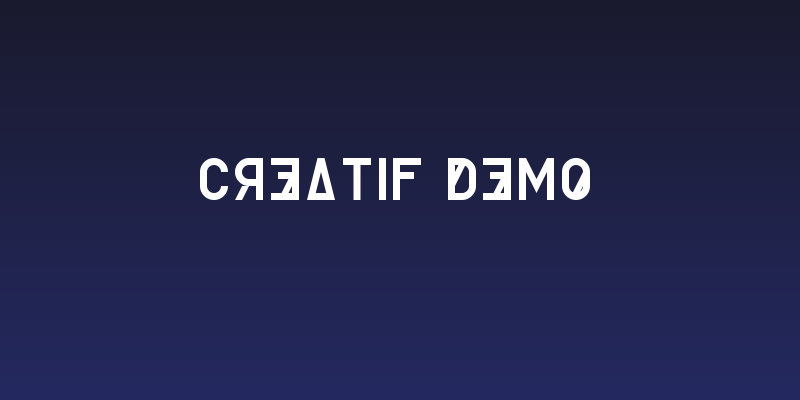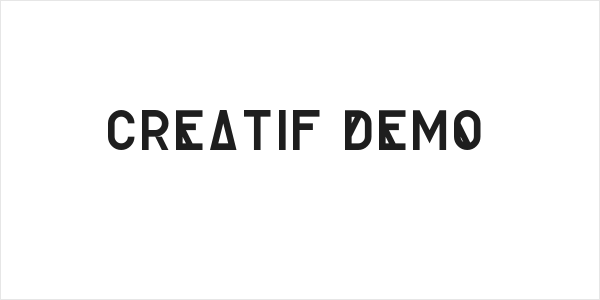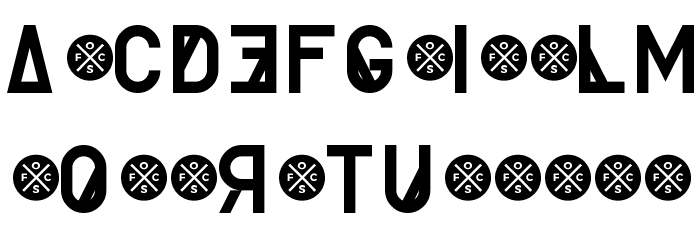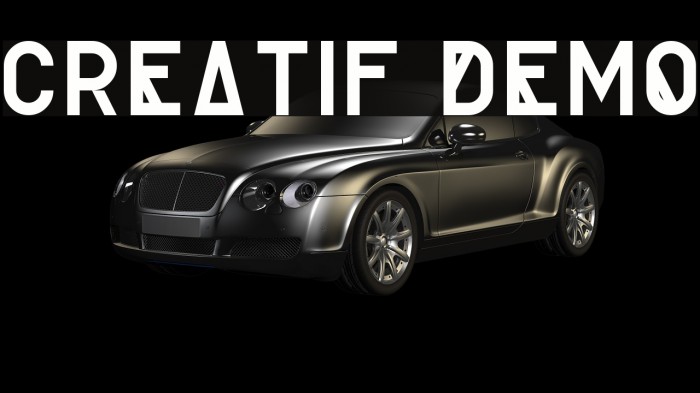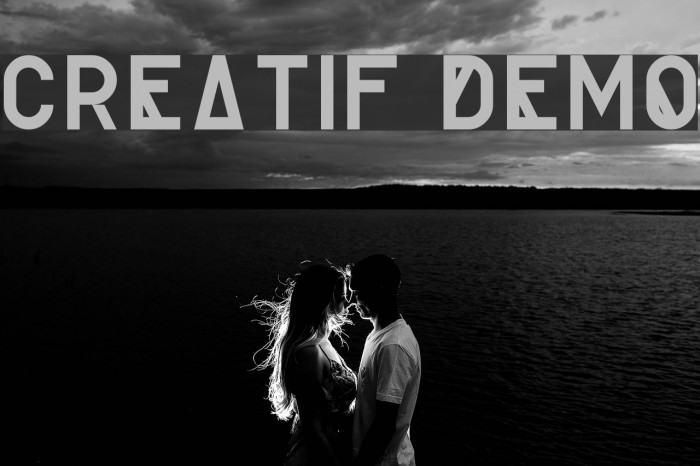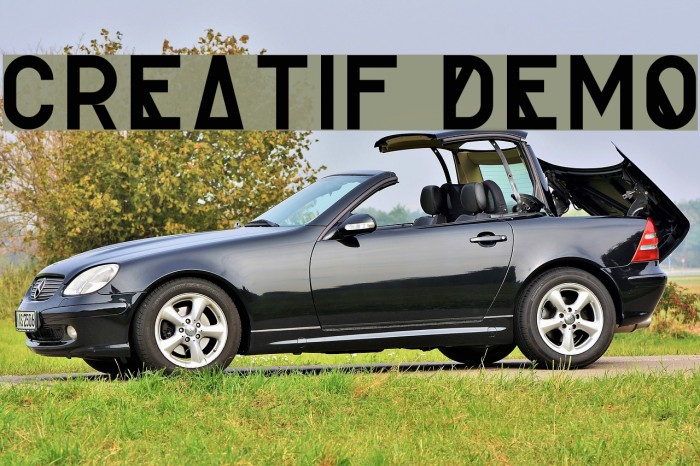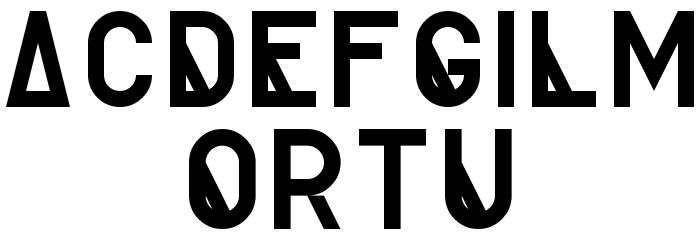
Creatif Demo Font
Creatif Demo Description
This font features a bold and geometric design with a distinctively modern and artistic flair. The characters are constructed with sharp angles and unique cutouts, giving them a futuristic and abstract appearance. The uppercase letters are particularly striking, with some characters incorporating triangular shapes and diagonal lines that add to the overall dynamic look. The lowercase letters maintain the geometric theme, providing a cohesive and visually engaging typeface. The numbers and special characters are consistent with the angular and bold style, making this font suitable for creative and avant-garde projects.
| Proposed Projects | Ideal for branding, posters, album covers, and any project requiring a contemporary and artistic touch. |